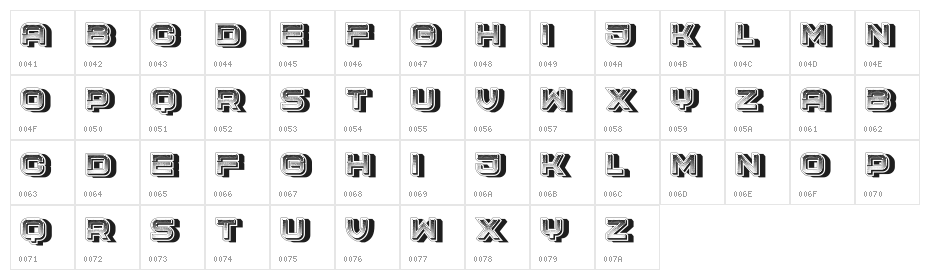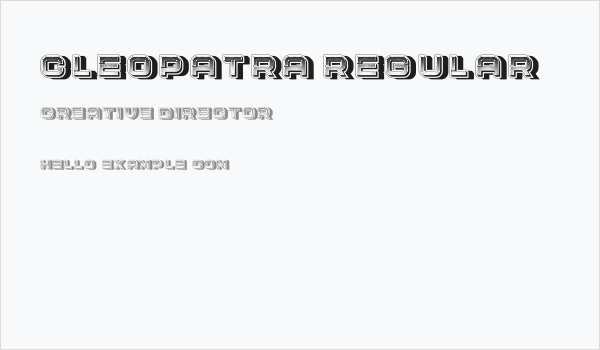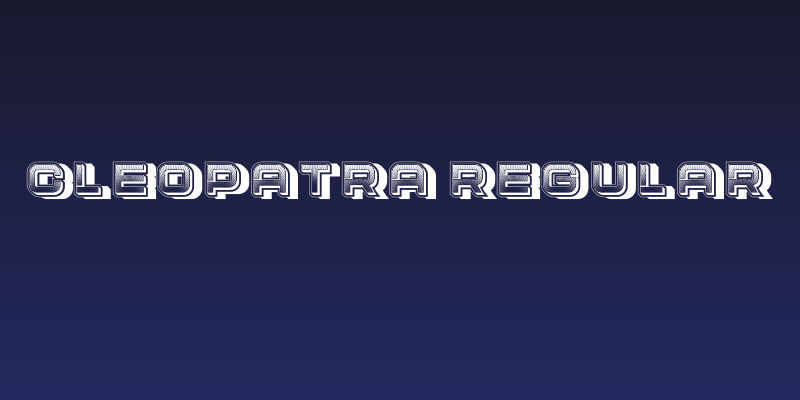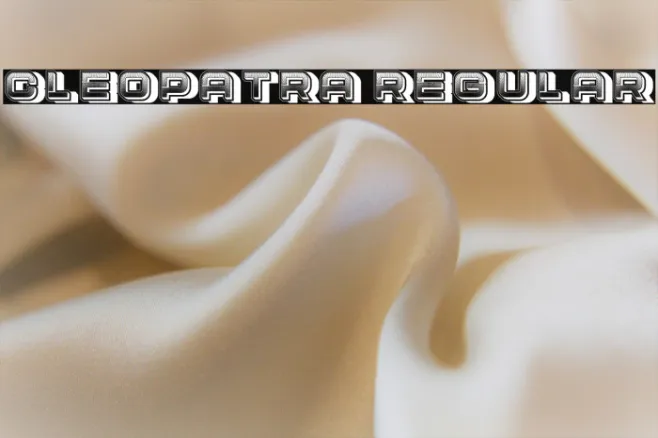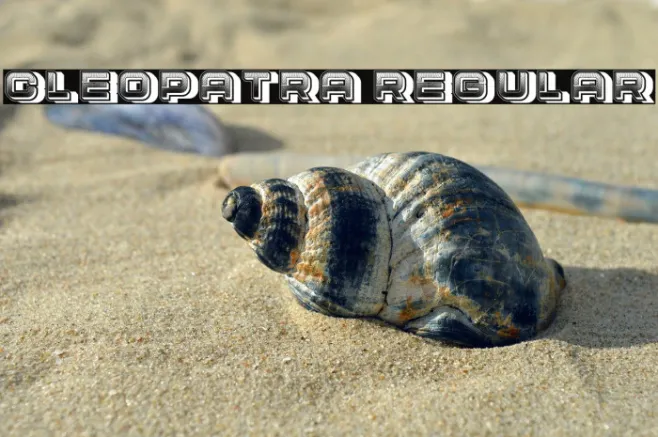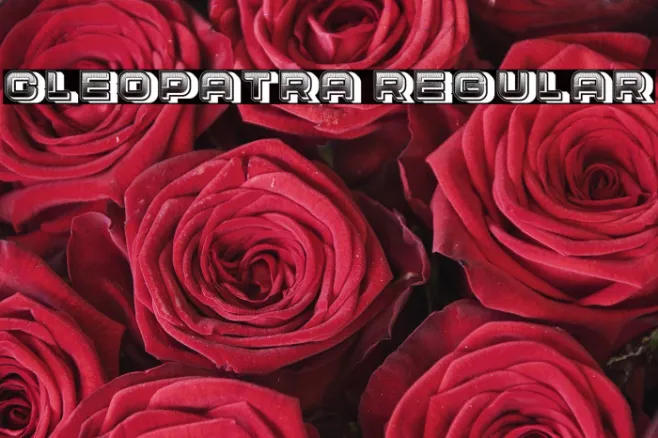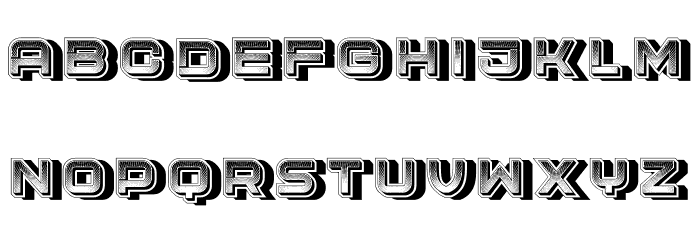
Cleopatra Regular Font
Cleopatra Regular Description
This font features a bold and decorative style with a three-dimensional effect. Each character is outlined with a thick shadow, giving it a layered appearance. The letters are uppercase, with a geometric and structured design that emphasizes straight lines and sharp angles. The intricate detailing within each letter adds a sense of depth and complexity, making it stand out in any design. The font's unique style is reminiscent of vintage signage or classic movie posters, offering a touch of nostalgia while maintaining a modern edge.
| Proposed Projects | Ideal for vintage-themed posters, retro branding, eye-catching headlines, and creative logos. |